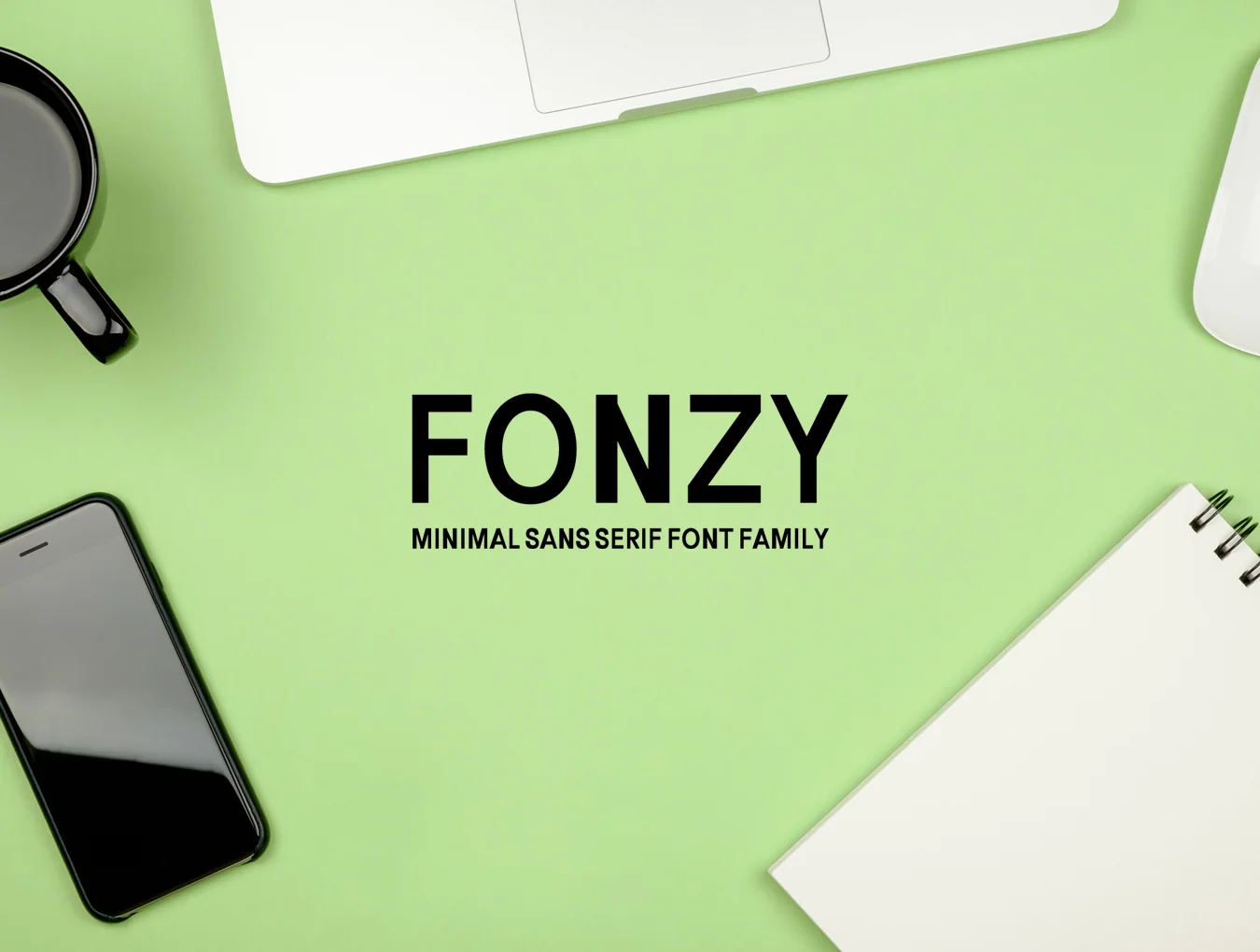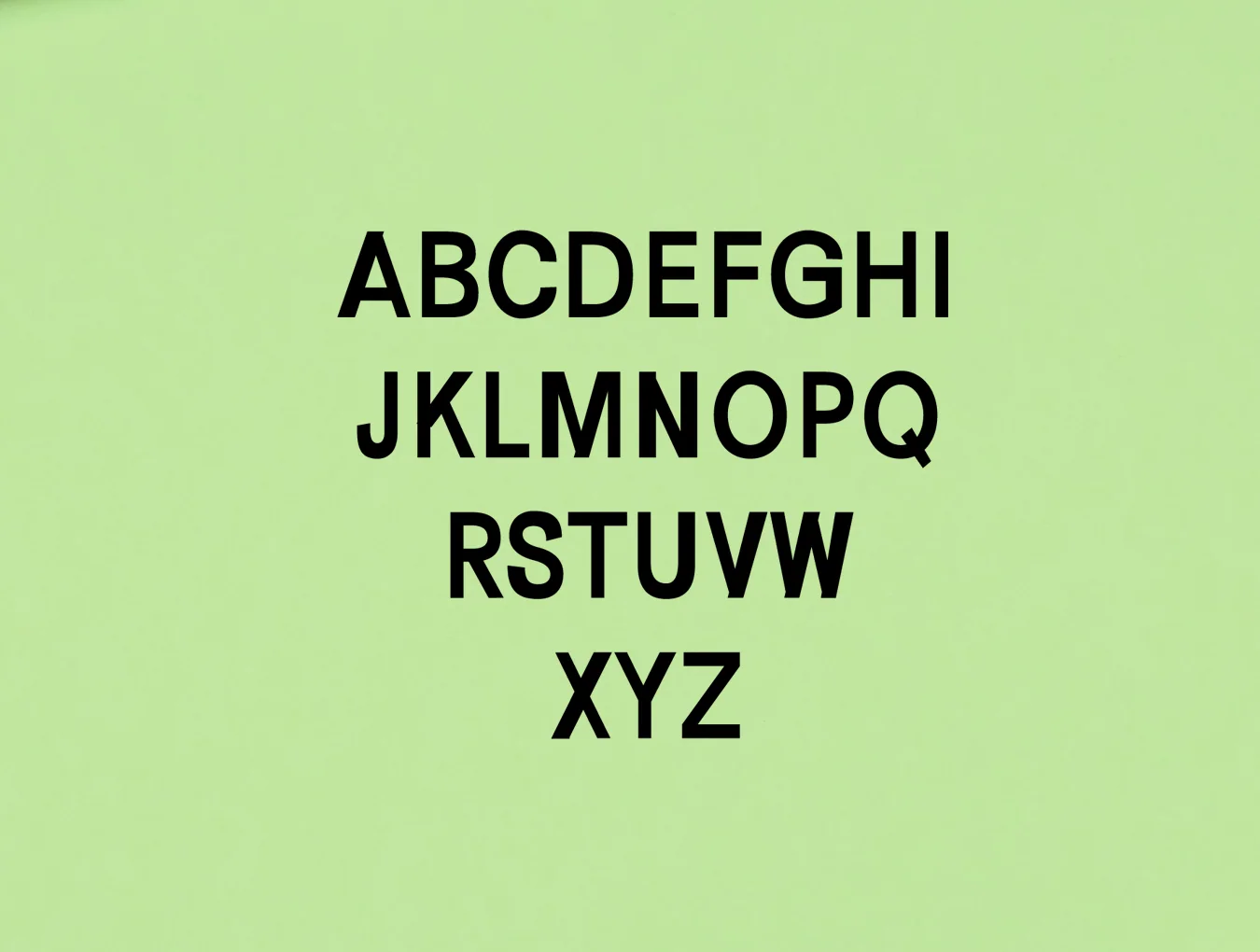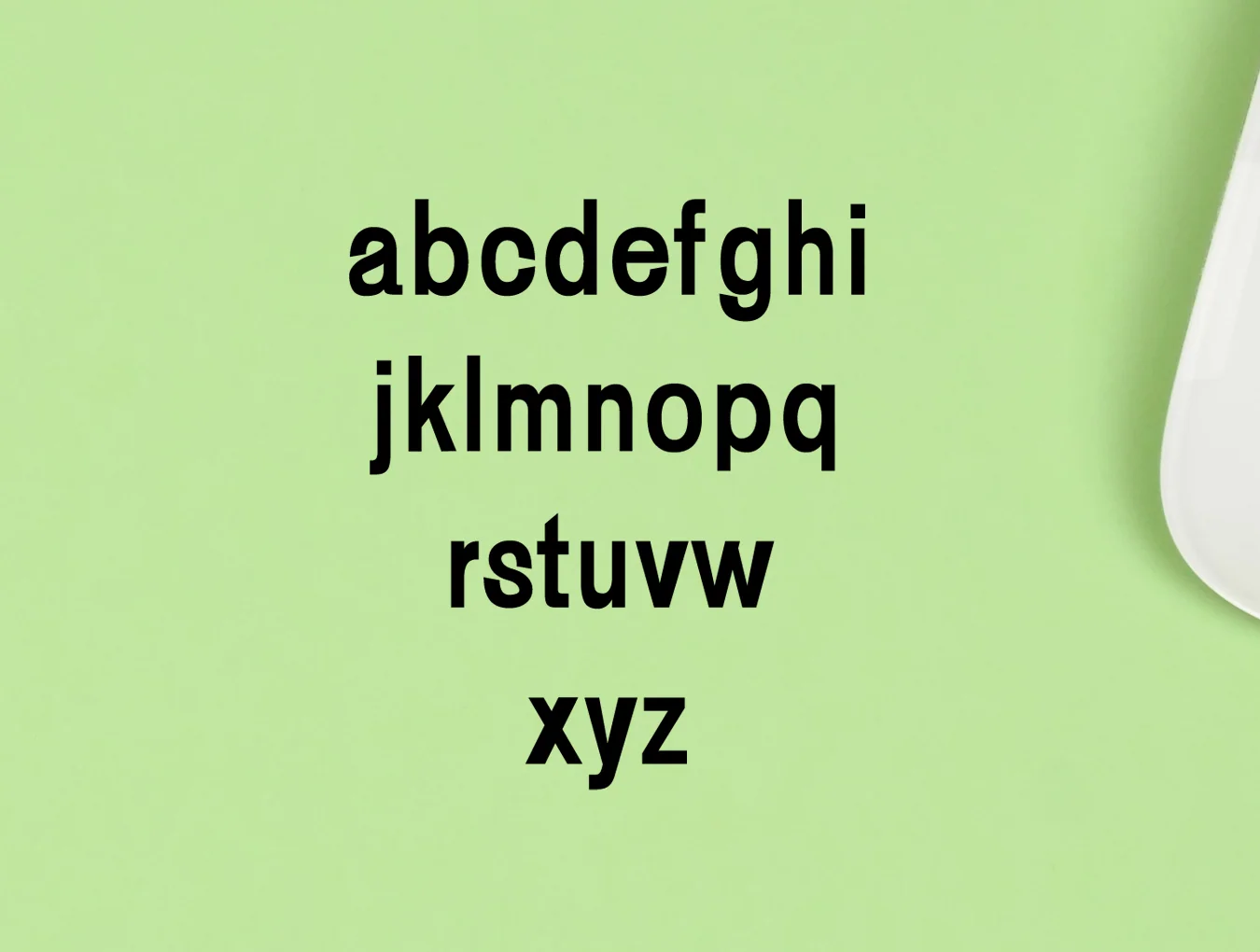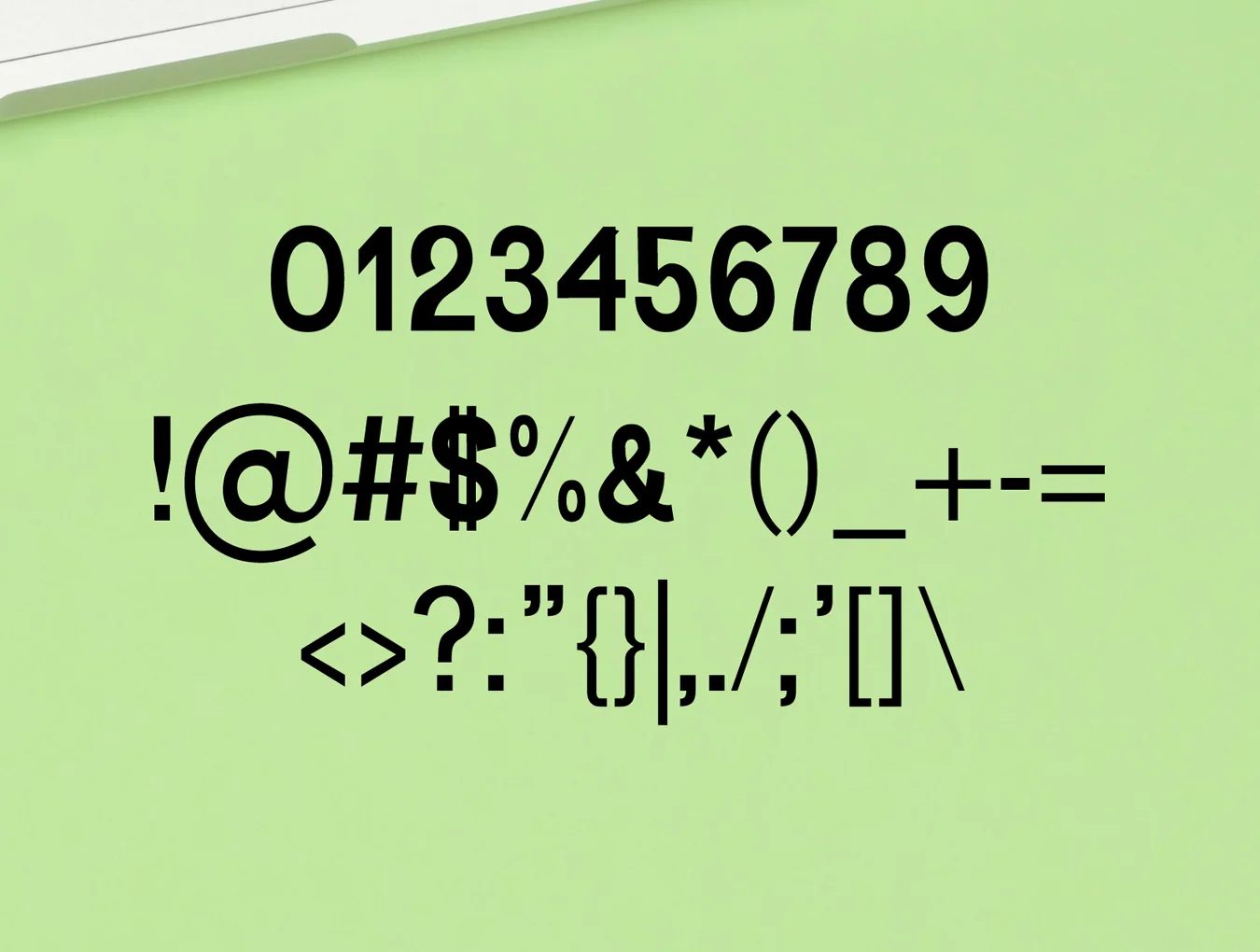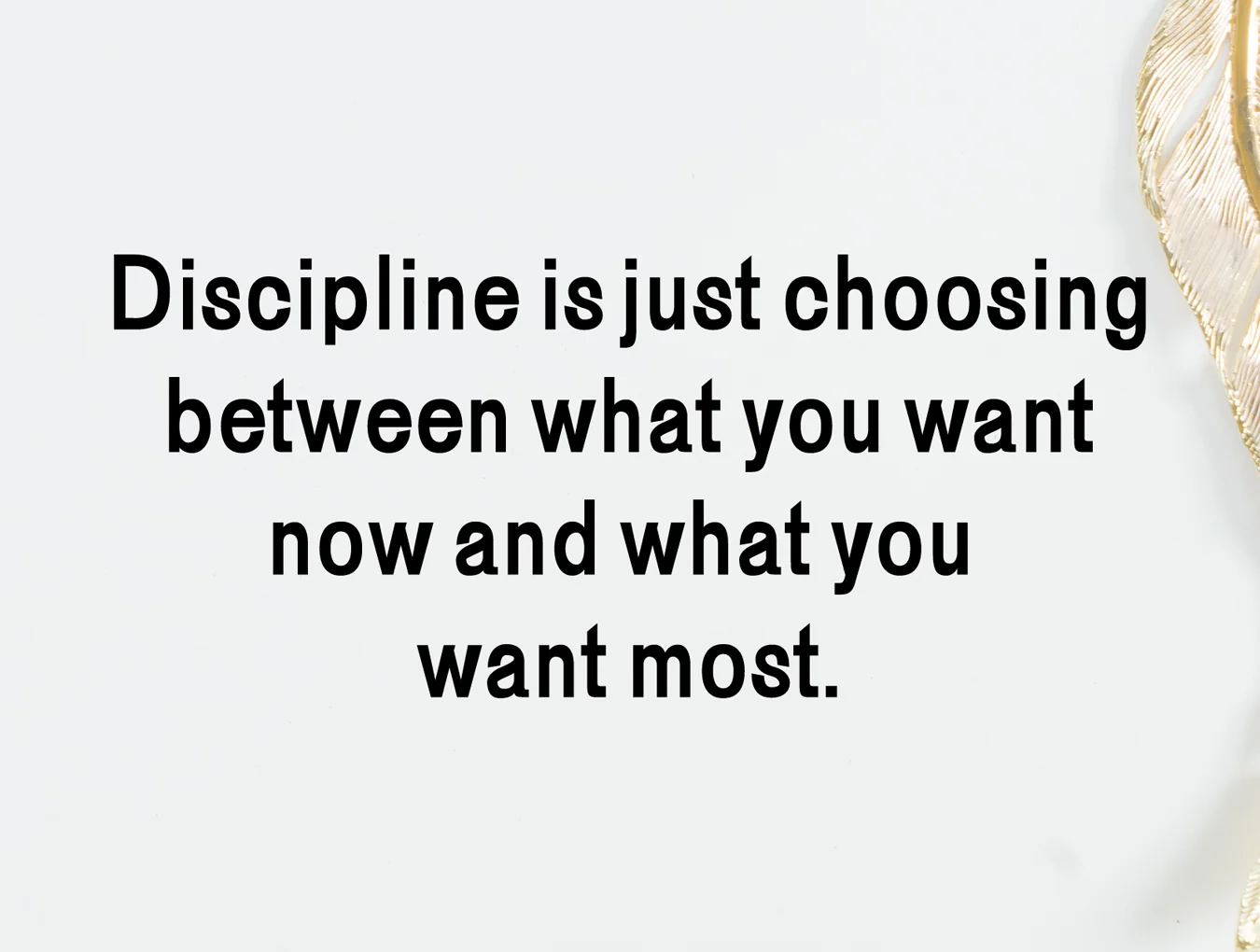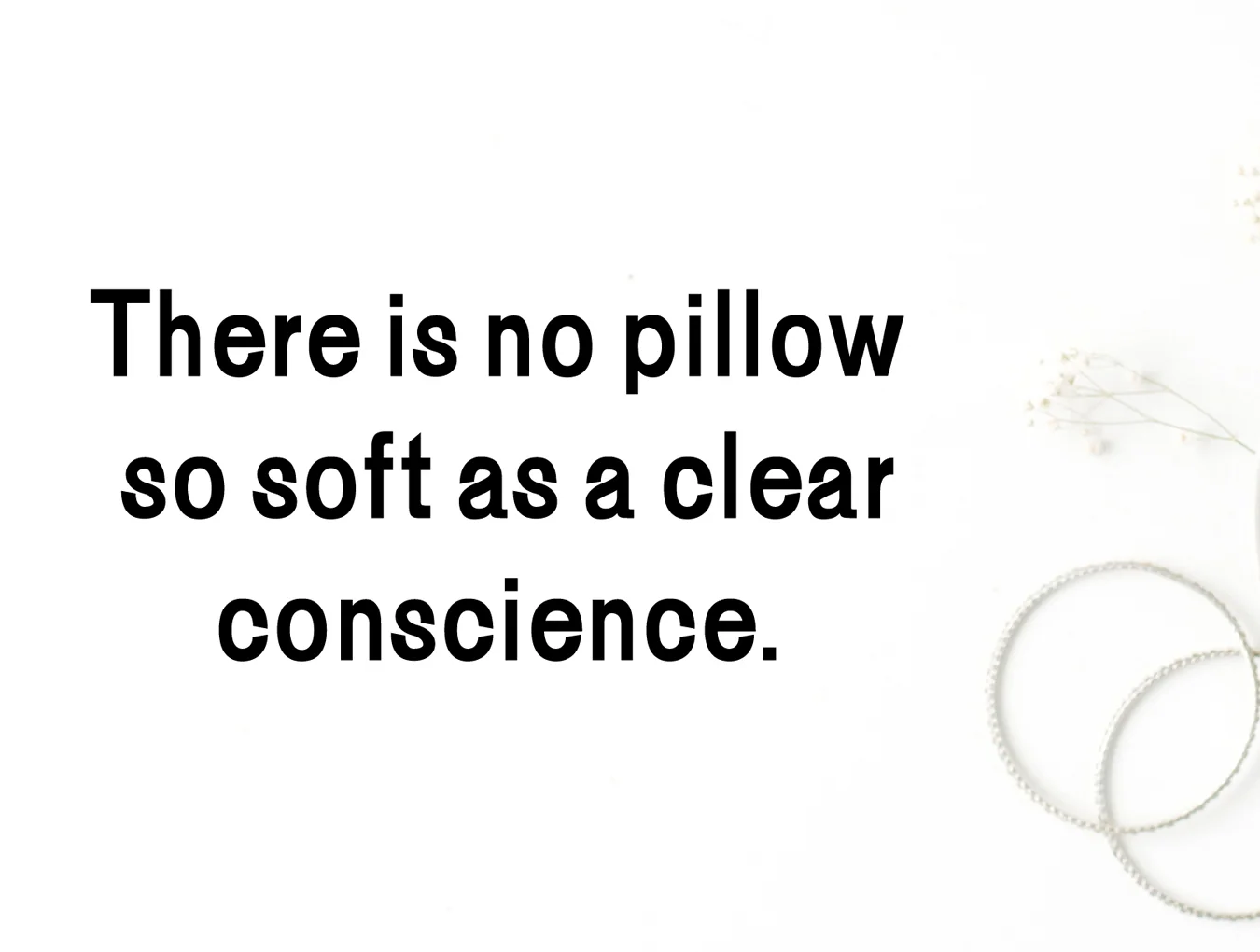
Fonzy Minimal Font Family
Fonzy clean sans serif bundle with 5 font families
Block-style sans serif font family
Set of 293 characters
Regular, Thin, Light, Outline, and Bold styles
Fonzy is a fresh, lively sans serif family with 5 fonts. Its bold character makes it ideal for headlines, wedding invitations, greeting cards, T-shirts, branding, logos, merchandise, social media graphics, packaging, and many other creative design projects.